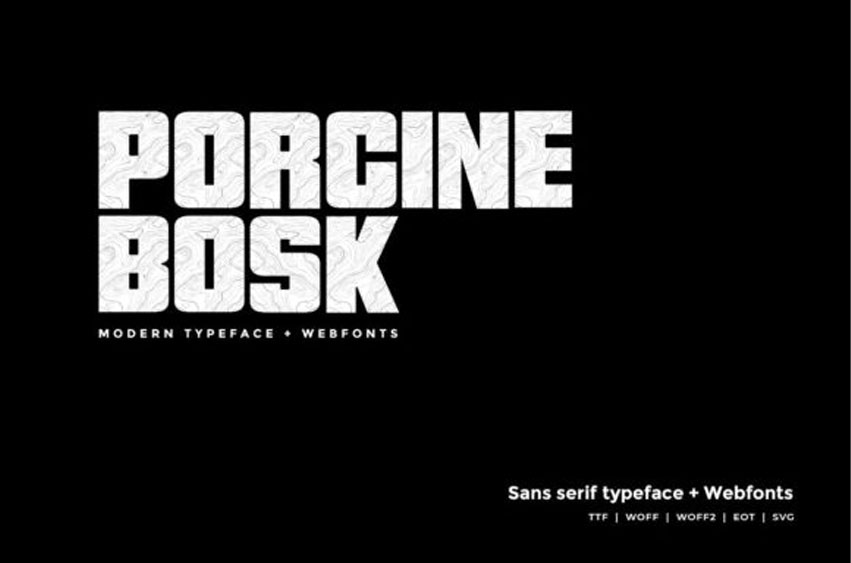
Porcine Bosk Font
Porcine Bosk Font is a modern sans serif typeface, designed with a wooden texture.
It’s suitable for headlines, posters, logos, banners, web designs and much more!